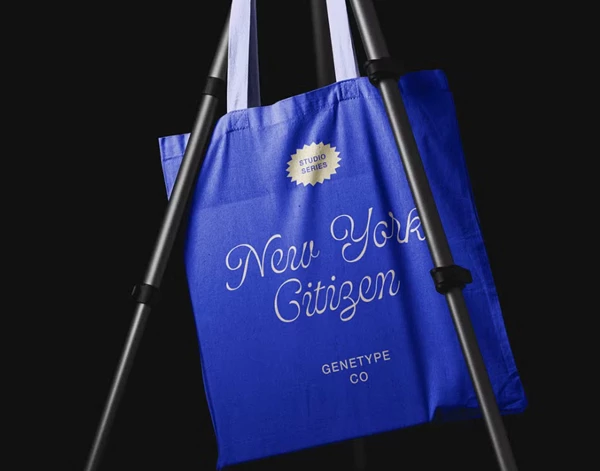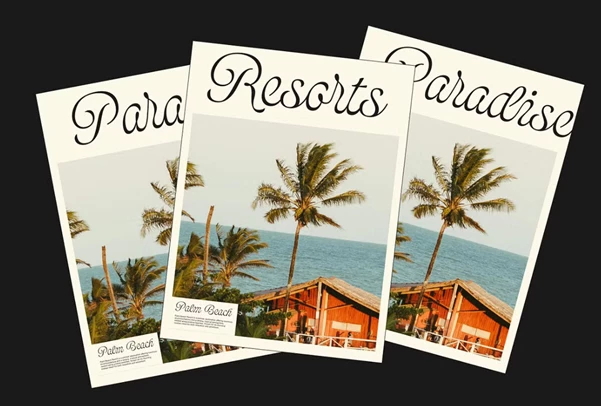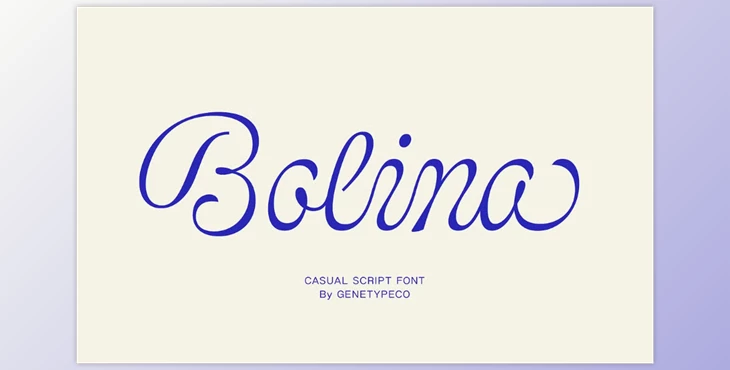
Bolina Casual Script Font:
Incorporating a bold yet informal touch, Bolina is a modern script font that can be used for various design projects. Bolina strikes a perfectly contemporary casual appearance, whether brand logos, invitations, promotional social media graphics, posters, or wordsmithing brands into digital narrations. A mark of true artistry, it surely infuses an unparalleled freshness into every design.